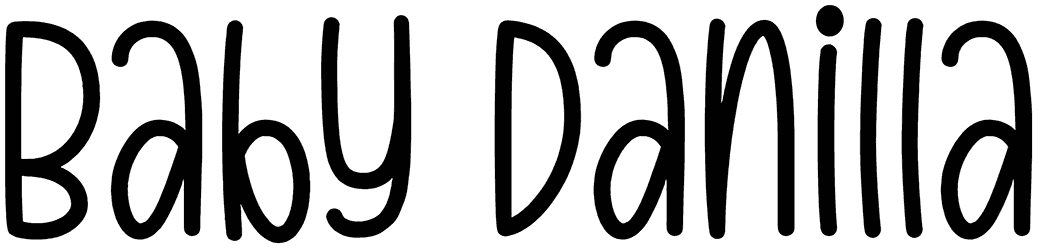
Baby Danilla Font
To achieve an adorable and stunning showcase, using this cute handwritten font is going to satisfy you. This baby font features thin and soft letters that will make a nice addition to a Children’s Day Instagram post. You have A-Z characters of the Baby Danilla font, and it gives you a good freedom to use it for any project.